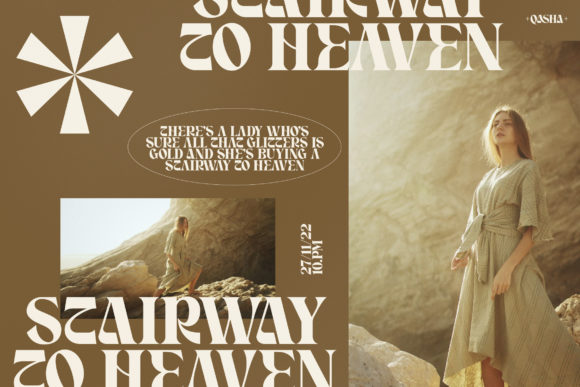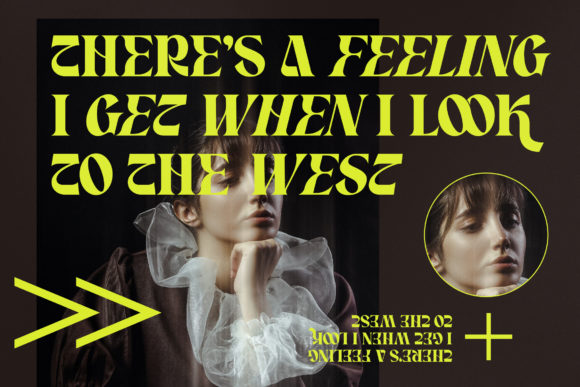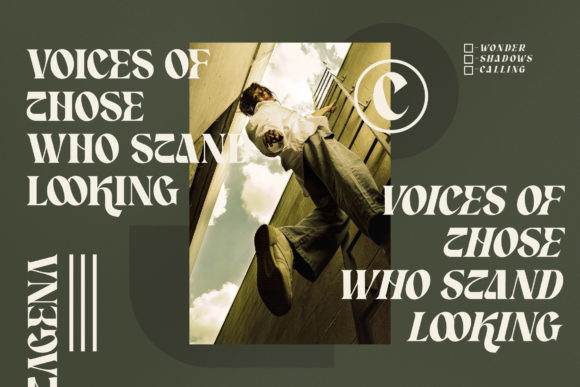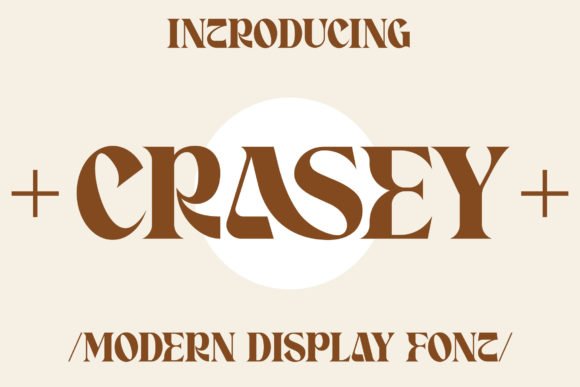
Introduction to Crasey Font
Crasey is a stylish and distinct serif font.
It is perfect for product packaging, branding project, magazine covers, social media, wedding, or just used to express words above the background .
Crasey Font offers exceptional quality and versatility, making it a valuable addition to your design toolkit. Whether you’re creating for personal projects or commercial use, Crasey Font delivers professional results.